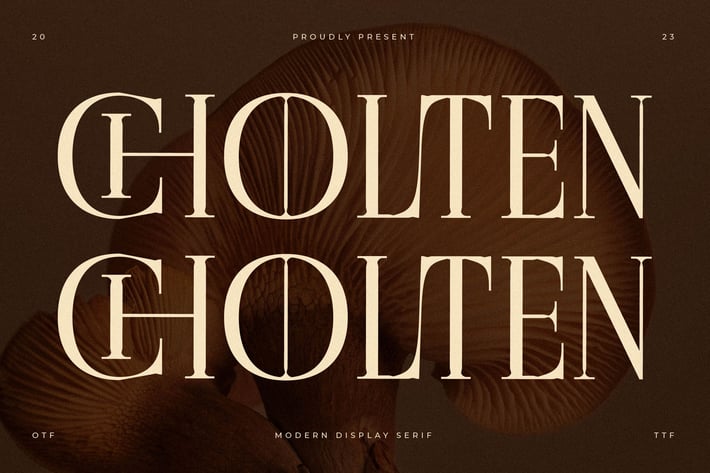
Cholten Modern Display Serif Font
Cholten is a modern display serif font with bold, elegant letterforms and distinctive details. Its timeless aesthetic blends classical sophistication with a contemporary edge, making it perfect for impactful titles, branding, and editorial designs.
+ Modern display serif style
+ Strong, bold letterforms with refined elegance
+ High contrast strokes for a luxurious appearance
+ Perfect readability in large sizes
+ Works beautifully for print and digital projects
+ Branding & logos
+ Editorial & magazine layouts
+ Posters & headlines
+ Fashion and luxury projects
+ Invitations & stationery
+ Social media graphics
Command attention with Cholten — a modern serif font that combines timeless elegance with bold, contemporary character.